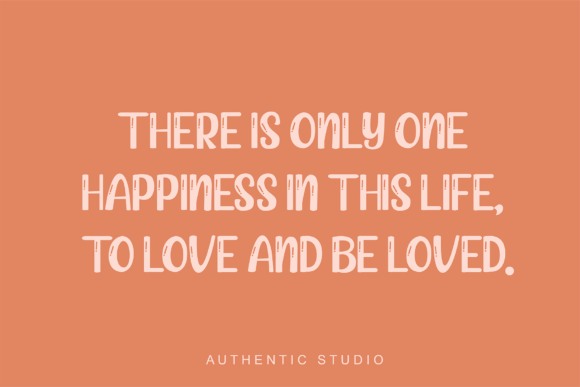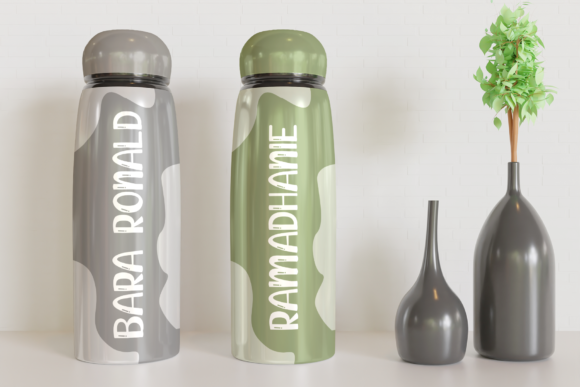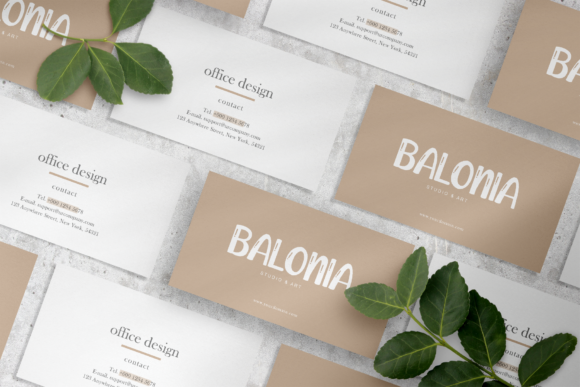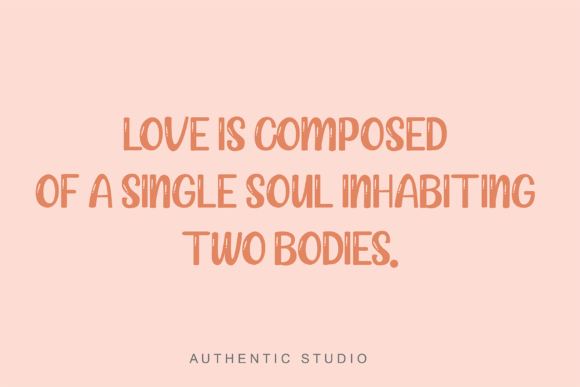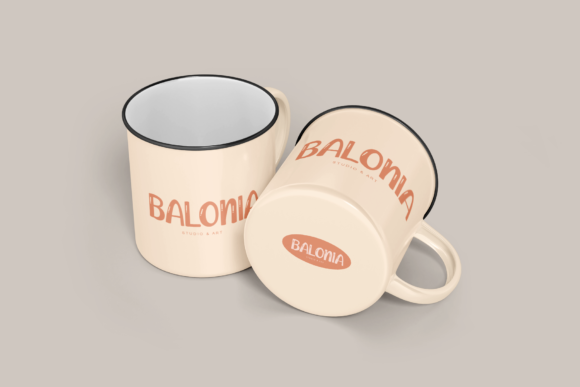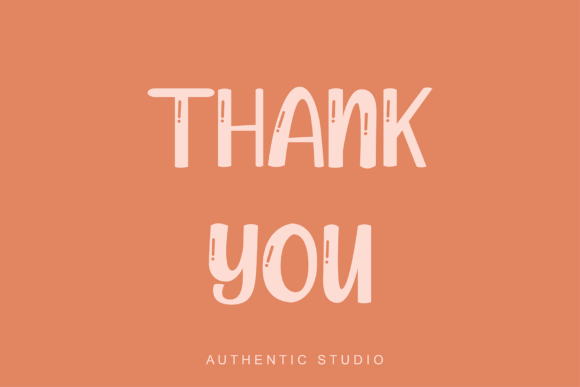
The Ultimate Guide to Balonia Font: Elevate Your Designs with this Bubbly Display Font
I’ll never forget the time I was working on a DIY project, pouring my heart and soul into creating the perfect Instagram post. But, as I was scrolling through my font library, I just couldn’t find the right one. That was until I stumbled upon Balonia Font. This cool and bubbly display font has been a game-changer for me, and I’m excited to share its awesomeness with you! 🎉
An Honest Review of Balonia Font
So, what makes Balonia Font so special? Let’s dive into the good stuff! 😊
• Unique and eye-catching design: Balonia Font is perfect for making your designs stand out from the crowd.
• Easy to read: Despite its playful vibe, this font is surprisingly legible, even at smaller sizes.
• 💫 Versatile: Use it for Instagram posts, calligraphy scripts, or any other creative project that needs a pop of personality.
Of course, no font is perfect, and Balonia Font has a few minor quirks:
• 🤔 Limited use in body text: While it’s amazing for headlines and titles, Balonia Font might not be the best choice for longer blocks of text.
• ⚠️ Some characters may require manual kerning: Depending on your design, you might need to adjust the spacing between certain letters for optimal results.
The Story Behind Balonia Font
Balonia Font was designed with one goal in mind: to create a fun, yet elegant display font that would inspire creativity. Its designer, a passionate typographer, drew inspiration from playful street art and elegant calligraphy. The result is a font that’s both bubbly and sophisticated.
What type of projects is Balonia Font best suited for? Balonia Font is perfect for creative projects, such as Instagram posts, DIY crafts, and calligraphy scripts.
Is Balonia Font suitable for body text? While it’s possible to use Balonia Font for body text, it’s primarily designed for headlines and titles.